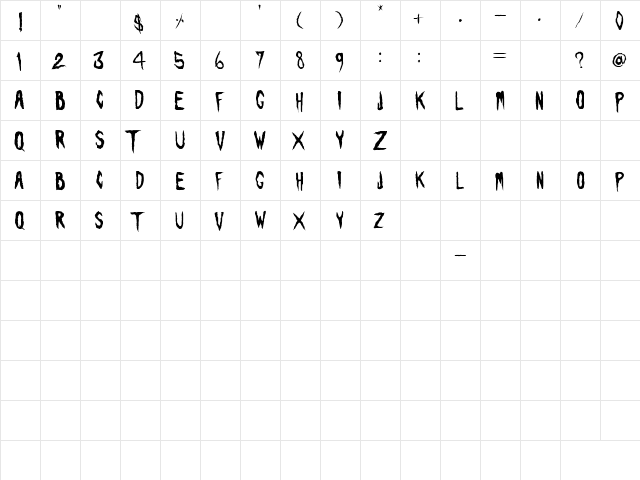
Visions of the Dead Regular
Design Context for Visions of the Dead Typeface
Visions of the Dead is a composed and adaptable typeface that performs quietly and consistently across a wide range of design contexts.